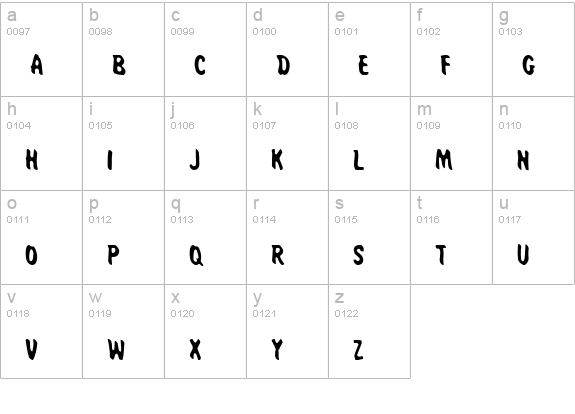
Miss Amanda Jones Cond is a distinctive, condensed-width variant in the Miss typeface family \xE2\x80\x94 well suited to design and typography projects.
Miss Amanda Jones Cond font is a stylish and elegant typeface that exudes sophistication and charm. With its condensed design and graceful curves, this font is perfect for creating eye-catching headlines, titles, and branding materials. The versatile nature of Miss Amanda Jones Cond font makes it suitable for a wide range of design projects, from invitations and posters to logos and packaging. And the best part? Miss Amanda Jones Cond font is completely free to download at FontsMarket.com, making it accessible to designers and creatives looking to add a touch of class to their work without breaking the bank. Don't miss out on this opportunity to elevate your designs with the timeless beauty of Miss Amanda Jones Cond font.